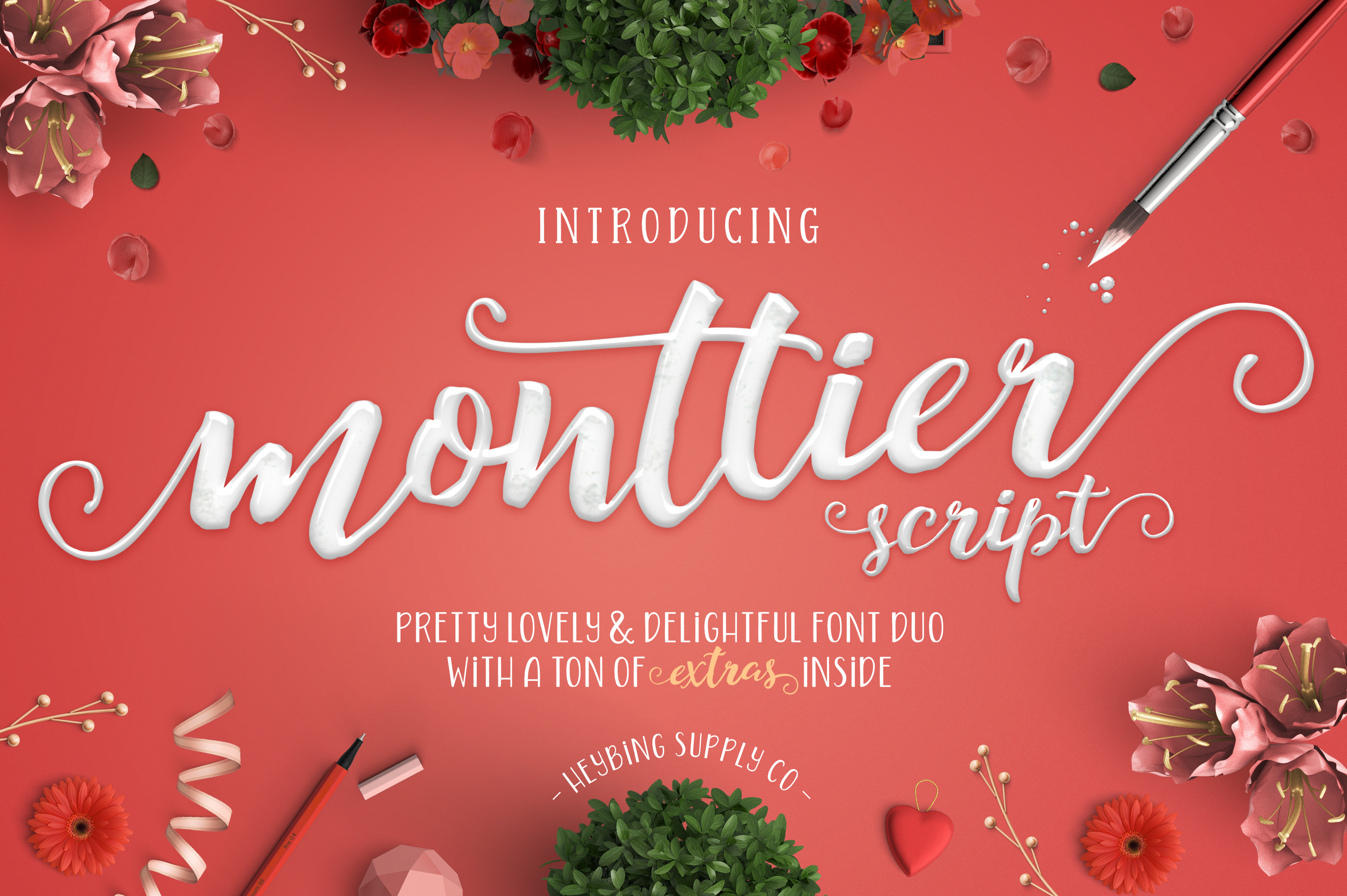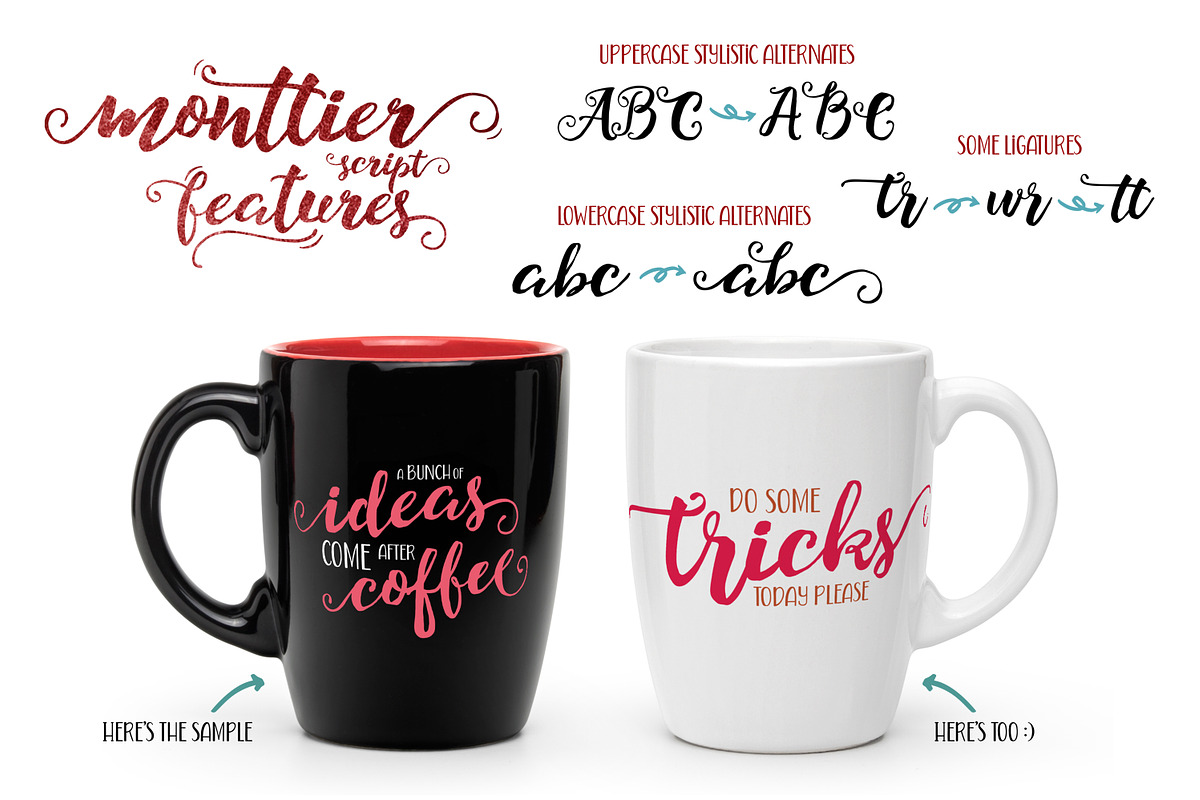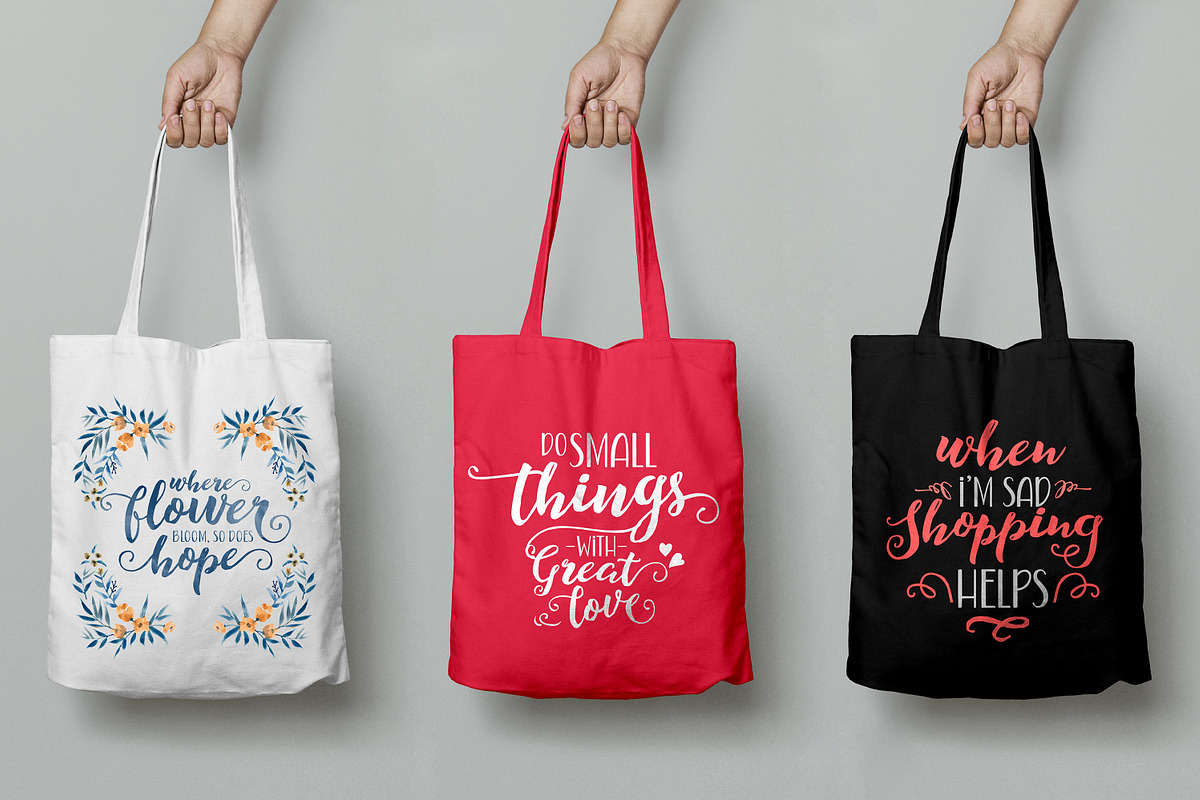
Monttier Script Font Duo
Monttier Script Font Duo is the new font set with Quinte Typeface from Heybing Supply Co,with beautiful shape intentionally made to greet the day of valentines. Was created as a dual-purpose font, with hand-painted characters and an irregular baseline, a elegant, playful, delightful, arty and inky, newly brush-lettered font.
To create the beautiful combination, just mix your words with the alternative glyphs. The Monttier Script includes a full set of capital and lowercase letters, as well as multi-lingual support, currency figures, numerals, punctuation & some extra glyphs.